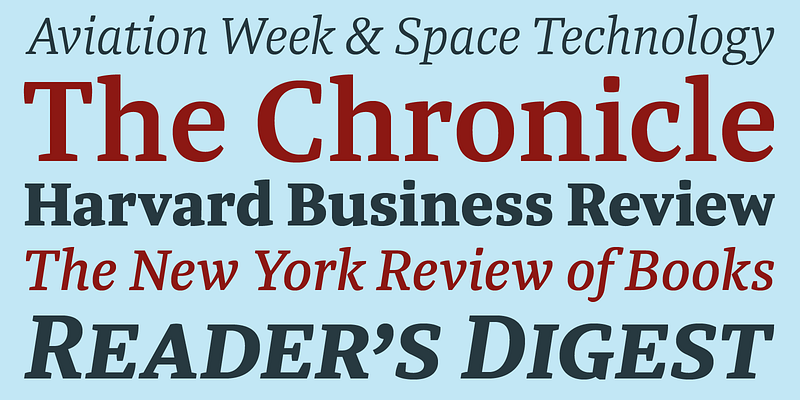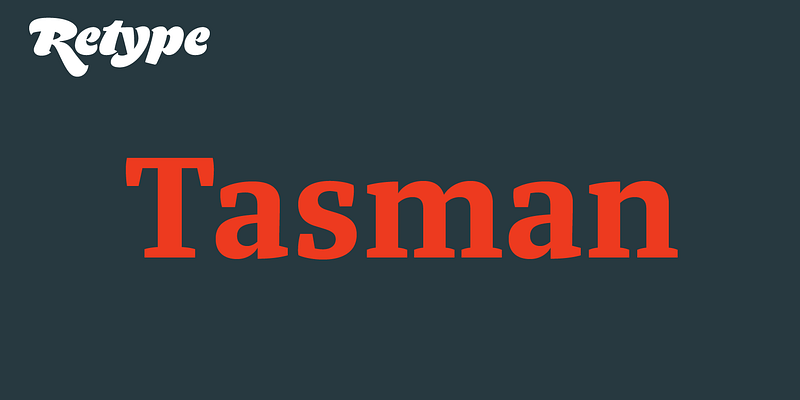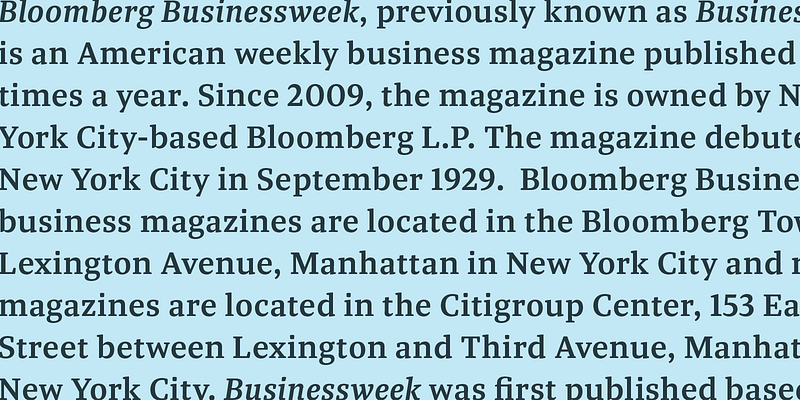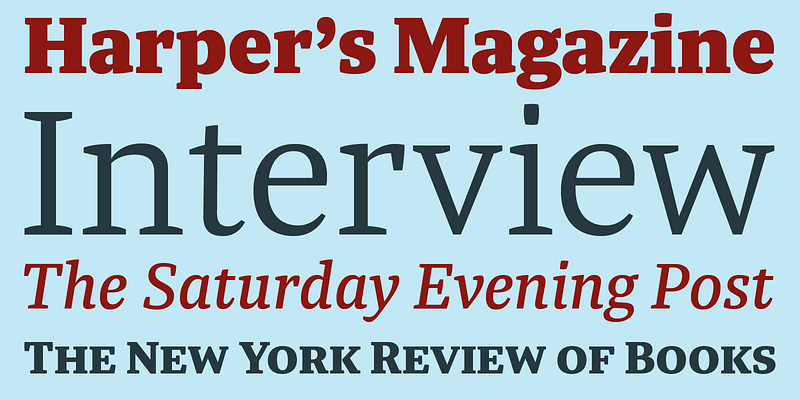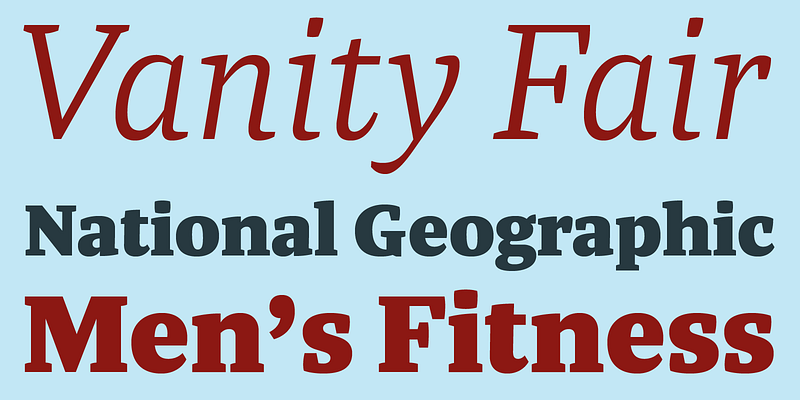
Originally published by OurType, Dan Milne’s Tasman has found a new home at Retype. Milne first conceived Tasman as a typeface for newspapers. This influenced the proportions and look of the face considerably: the goal was to keep the personality as warm and playful as possible without losing the credible tone required to deliver all kinds of news.
A sturdy, warm type family that is neither mechanical nor fragile. It borrows its name from Abel Janszoon Tasman (1603–1659), a Dutch seafarer, explorer, and merchant who mapped parts of Australia in 1642, including Van Diemen’s Land (now known as Tasmania).
Tasman’s primary purpose is an unbiased presentation of information; it strives for neutrality over elegance. Its characters are sturdy and unambiguous, sporting strong serifs, punctuation, and diacritics, as well as generously sized small caps and hybrid figures. Rationalized letterforms give the face enough robustness to withstand the stress of screen applications and laser printing. The figures’ three-quarter x-height makes them considerably larger than traditional oldstyle numerals, yet they still integrate with the lowercase much better than lining figures do.
Although initially intended for newspapers, Tasman’s somewhat corporate, objective appearance also makes it an excellent candidate for digital and print magazines, websites, annual reports, and corporate identities.
Tasman is a suite of feature-rich OpenType fonts fully equipped to tackle complex, professional typography. The character set includes small caps, fractions, case-sensitive forms, bullets, arrows, special quotes, and nine sets of numerals. Besides standard Latin, its extensive character set supports Central European, Baltic, and Turkish languages.